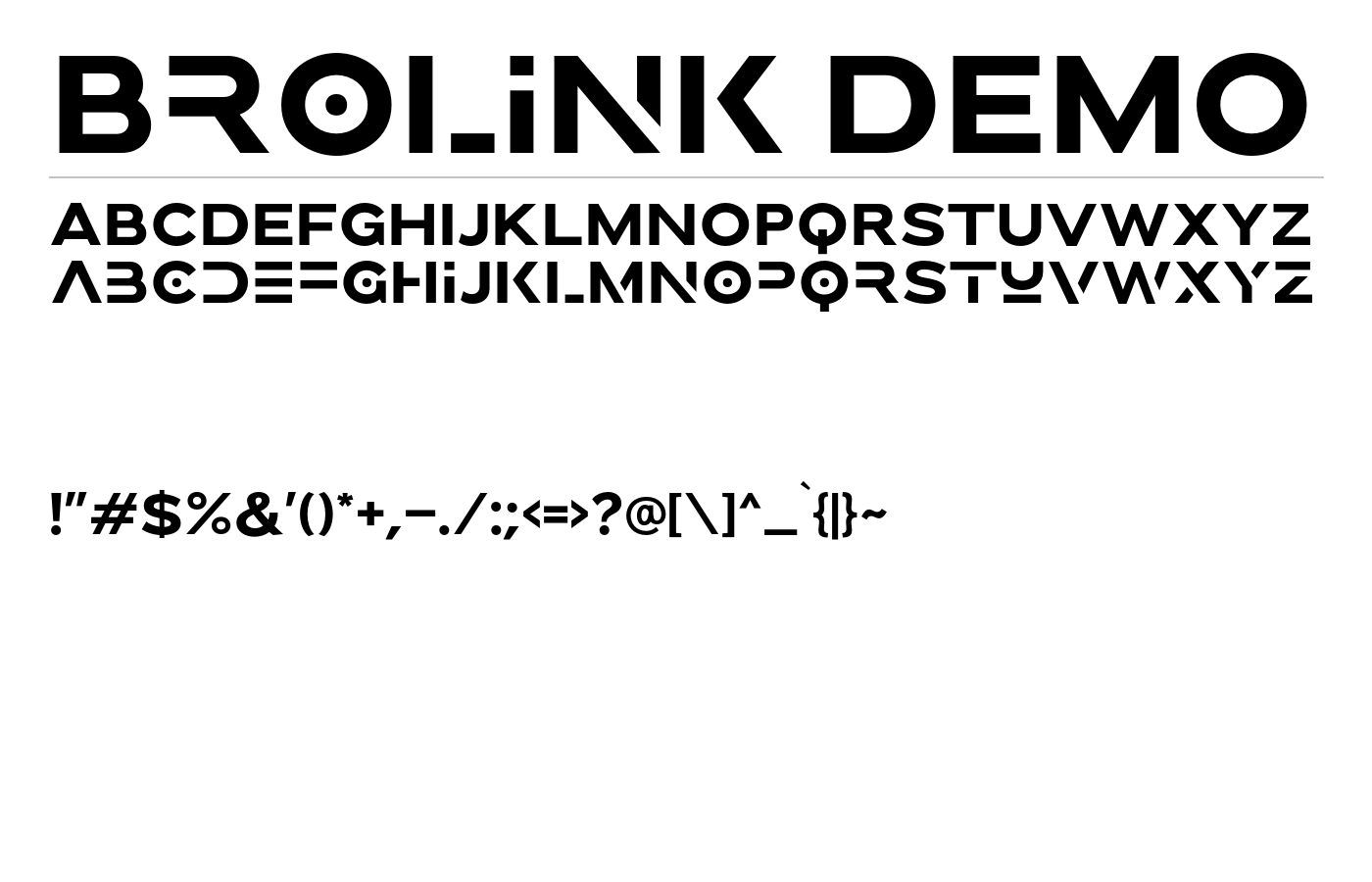
Brolink DEMO is a bold, geometric sans serif font with a modern and futuristic vibe, featuring unique and stylized letterforms that combine sharp angles and rounded shapes. Its high contrast and experimental design make it ideal for eye-catching logos, posters, and branding projects that seek a strong, contemporary presence. This font’s distinctive character shapes and clean structure work best in headlines and display uses where creativity and impact are key.
Brolink DEMO Font
About Brolink DEMO Font
| Font family | Brolink DEMO Font |
| Designer | Sarid Ezra |